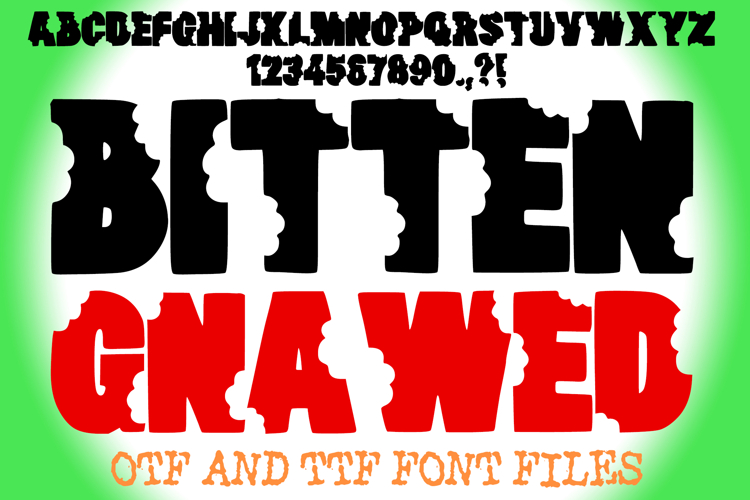
Bitten Gnawed Lettering ABC Bite Mark Font Typeface Alphabet
Give your designs a playful yet edgy twist with the Bitten Gnawed Font, a bold chunky display typeface that looks like it’s been chewed, eaten, or eroded! Perfect for Halloween designs, spooky posters, horror movie titles, kids’ crafts, and fun digital artwork, this font adds a bite of creativity to any project.
Whether you’re designing Halloween invitations, monster-themed crafts, eerie titles, or playful branding, this font delivers a unique mix of fun and fright.